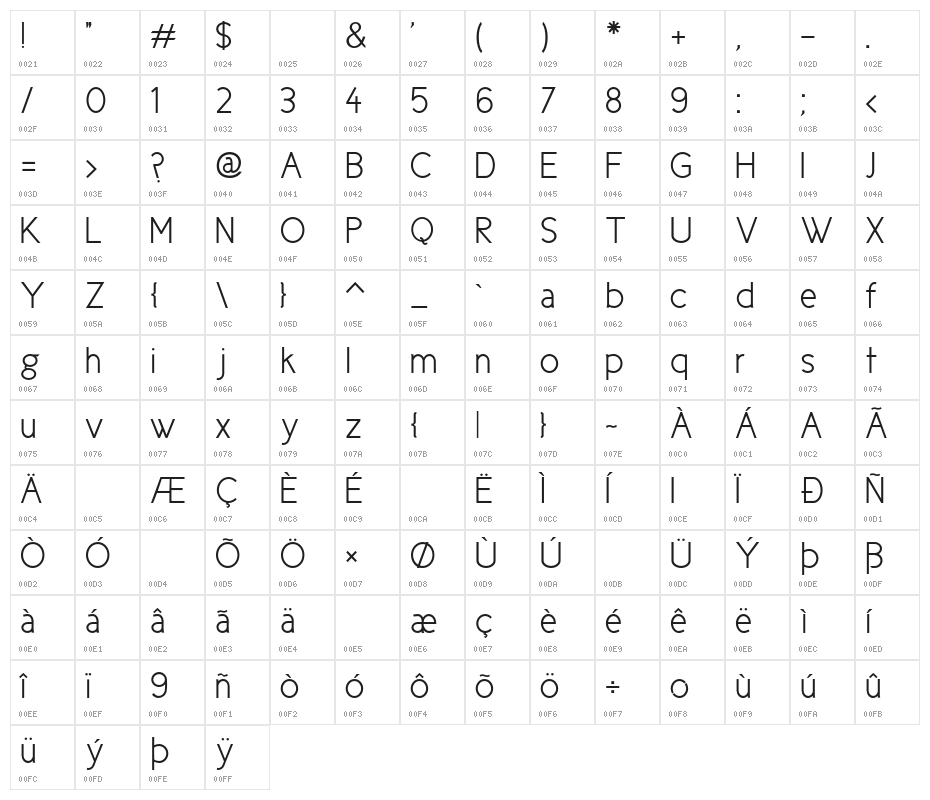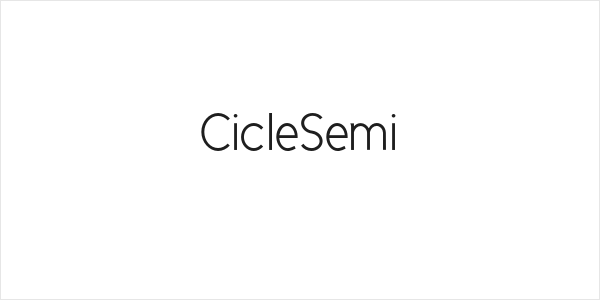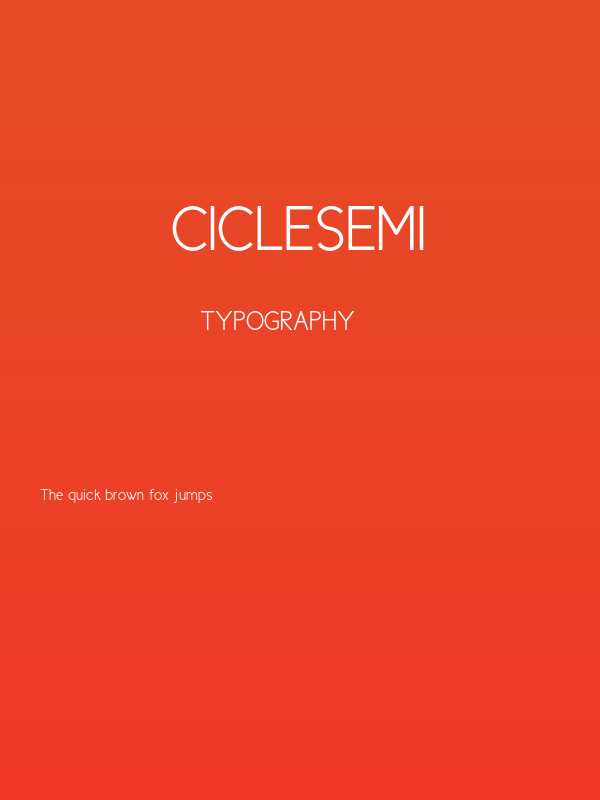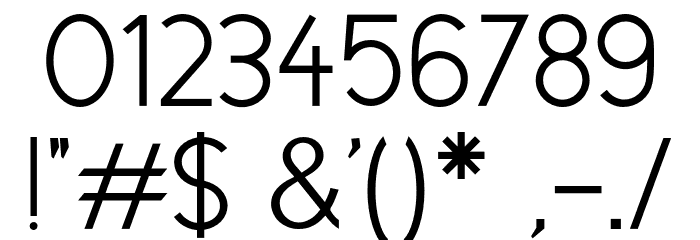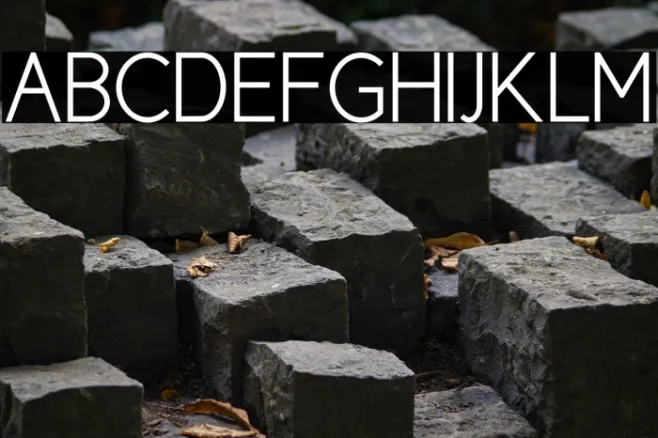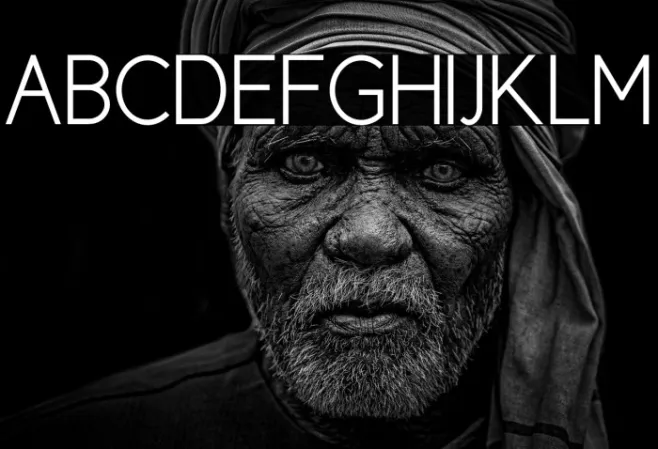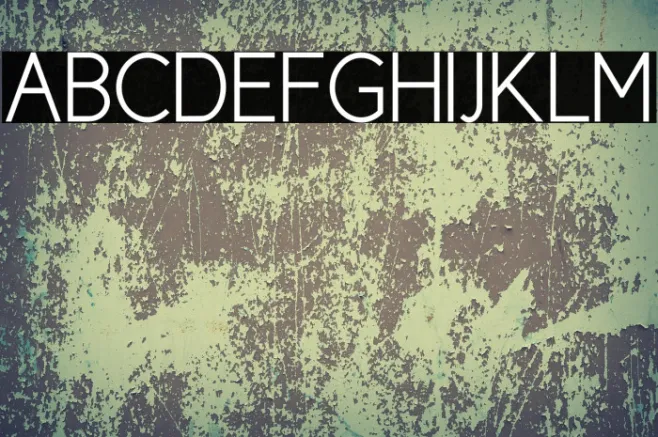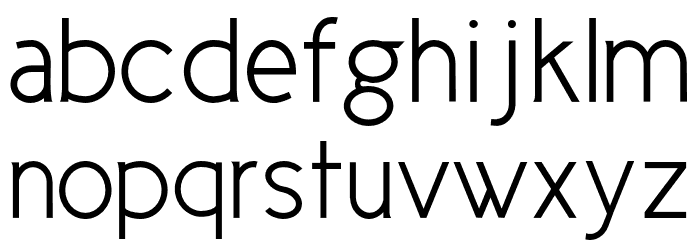
CicleSemi Font
CicleSemi Description
This typeface features a clean and modern design with geometric influences. The characters are well-proportioned, with a consistent stroke width that gives it a uniform appearance. The uppercase letters are bold and assertive, while the lowercase letters maintain a friendly and approachable feel. The numerals are clear and easy to read, making them suitable for various applications. The special characters are designed to match the overall aesthetic, ensuring a cohesive look across all text elements. This font is versatile and can be used in both digital and print media.